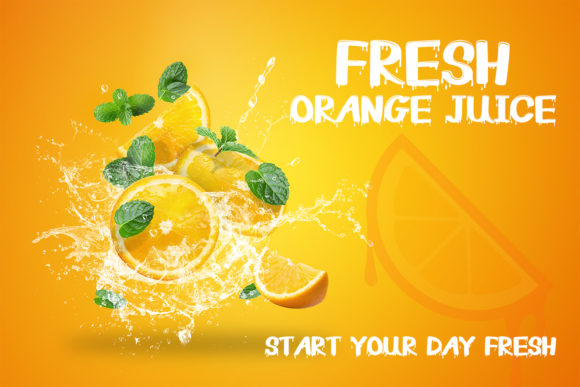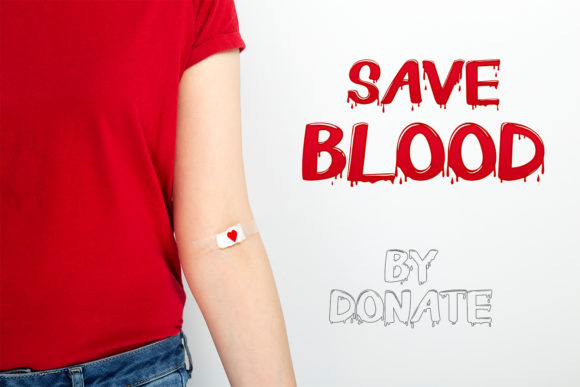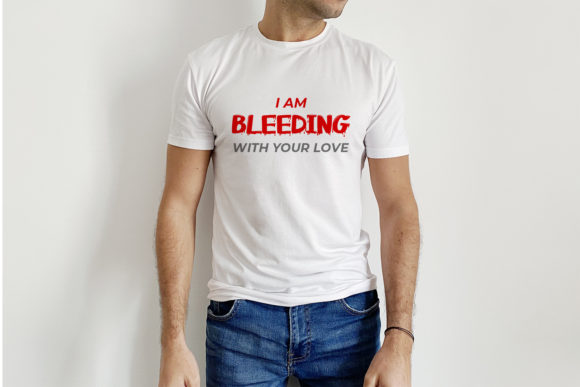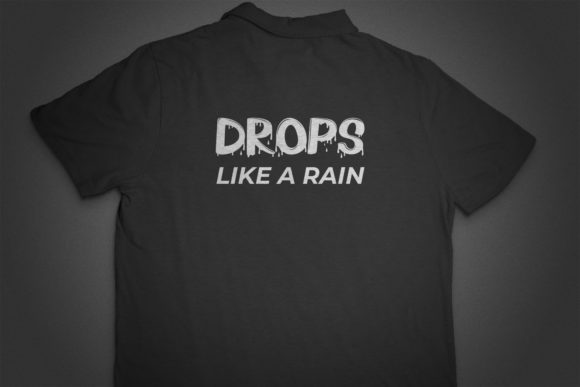
Drops Letters Font: Elevate Your Designs with a Bold and Unique Display Font
Are you tired of using the same old fonts in your designs? Do you want to add a touch of uniqueness and creativity to your projects? Look no further than Drops Letters Font, a bold and incredibly unique display font that is sure to make your designs stand out. In this article, we’ll take a closer look at Drops Letters Font, its features, and how you can use it to elevate your designs.
What is Drops Letters Font?
Drops Letters Font is a bold and modern display font that is perfect for designers and crafters looking to add a touch of sophistication and elegance to their projects. Its unique design features drops or droplets that form the letters, giving it a distinctive and eye-catching look. The font is incredibly versatile and can be used for a wide range of projects, from logos and branding to posters, flyers, and more.
Key Features of Drops Letters Font
So, what makes Drops Letters Font so special? Here are some of its key features:
• Unique Design: The font’s unique design features drops or droplets that form the letters, giving it a distinctive and eye-catching look.
• Bold and Modern: Drops Letters Font is a bold and modern font that is perfect for designers and crafters looking to add a touch of sophistication and elegance to their projects.
• Highly Versatile: The font is incredibly versatile and can be used for a wide range of projects, from logos and branding to posters, flyers, and more.
• Easily Readable: Despite its unique design, Drops Letters Font is easily readable, making it perfect for use in titles, headings, and other display text.
How to Use Drops Letters Font
So, how can you use Drops Letters Font in your designs? Here are a few ideas to get you started:
• Logos and Branding: Use Drops Letters Font to create a unique and memorable logo for your business or brand.
• Posters and Flyers: Add a touch of sophistication and elegance to your posters and flyers with Drops Letters Font.
• Social Media Graphics: Use Drops Letters Font to create eye-catching social media graphics that will help your posts stand out.
• Packaging Design: Add a touch of uniqueness and creativity to your packaging design with Drops Letters Font.
Tips for Using Drops Letters Font
Here are a few tips for using Drops Letters Font in your designs:
• Use it Sparingly: While Drops Letters Font is a beautiful font, it can be overwhelming if used too much. Use it sparingly to add emphasis and create visual interest.
• Pair it with Other Fonts: Pair Drops Letters Font with other fonts to create a unique and visually appealing combination.
• Experiment with Colors: Experiment with different colors to find the perfect combination that works with your design.
Drops Letters Font is a bold and incredibly unique display font that is sure to make your designs stand out. Its unique design, bold and modern style, and high versatility make it perfect for a wide range of projects. Whether you’re a designer or crafter, Drops Letters Font is a great addition to your font collection. So why not give it a try and see how it can elevate your designs?